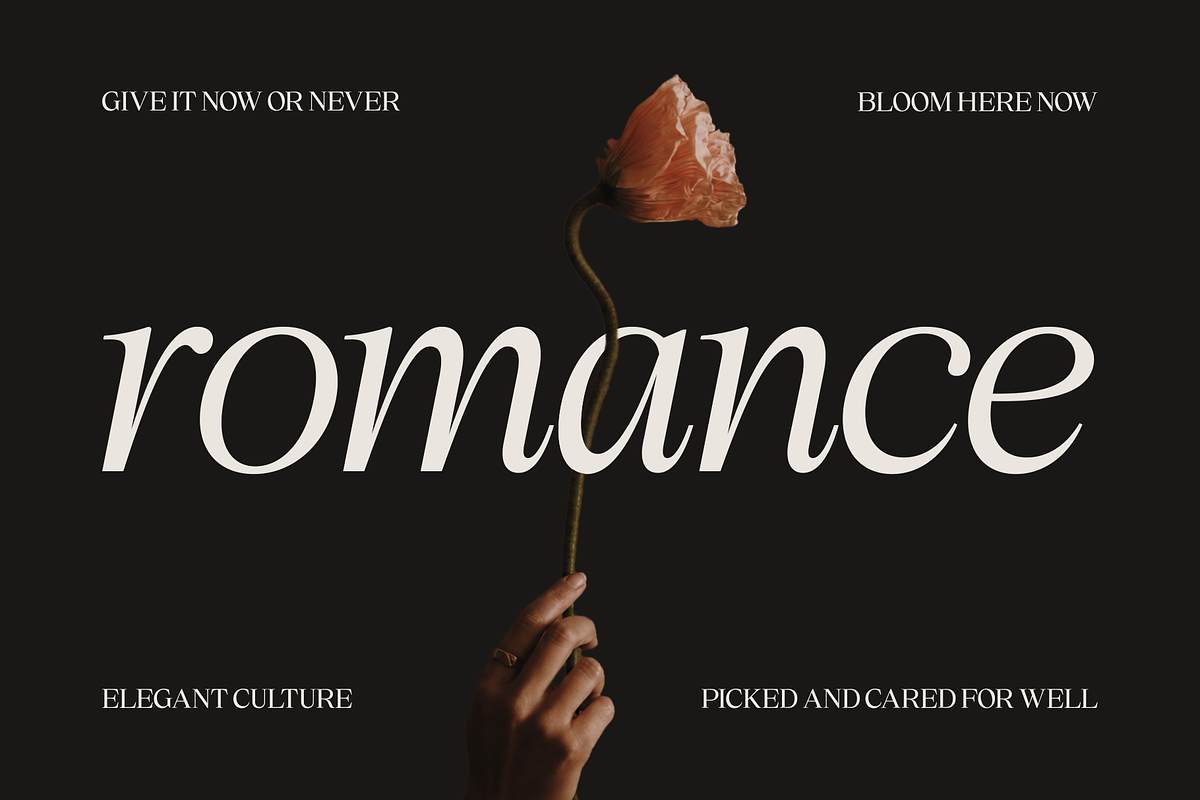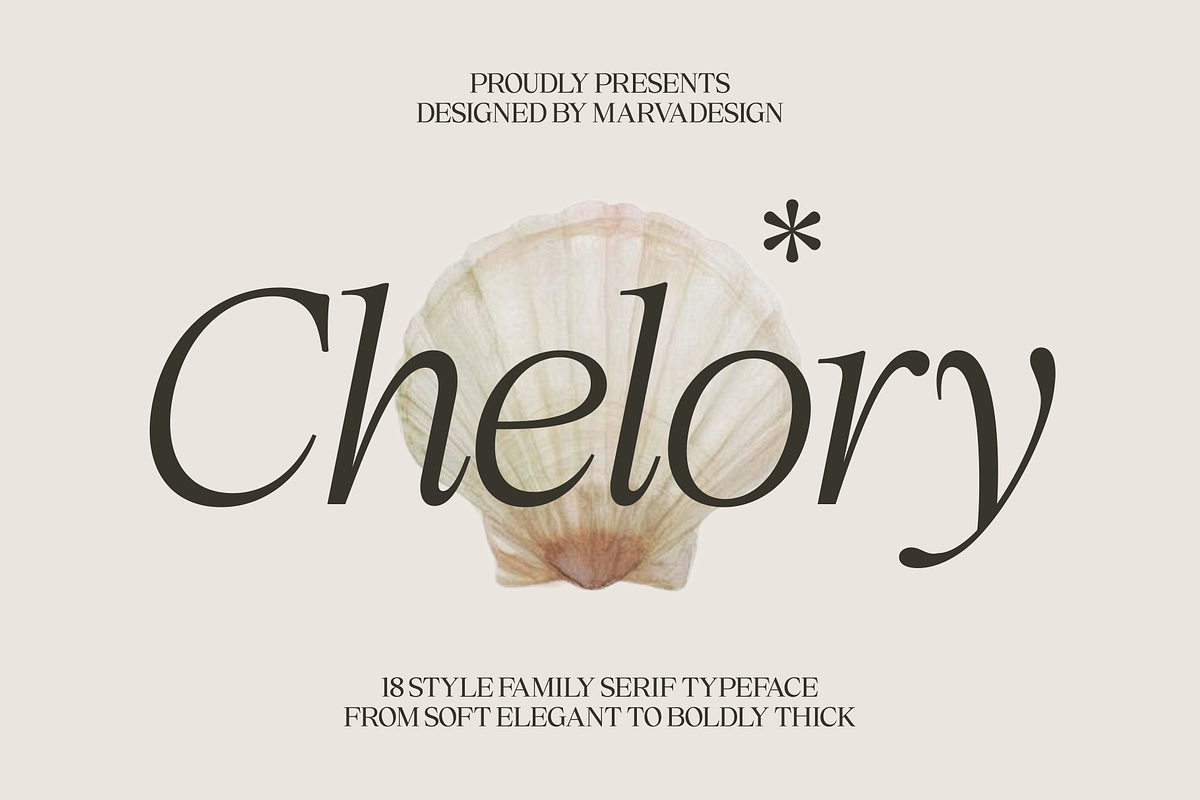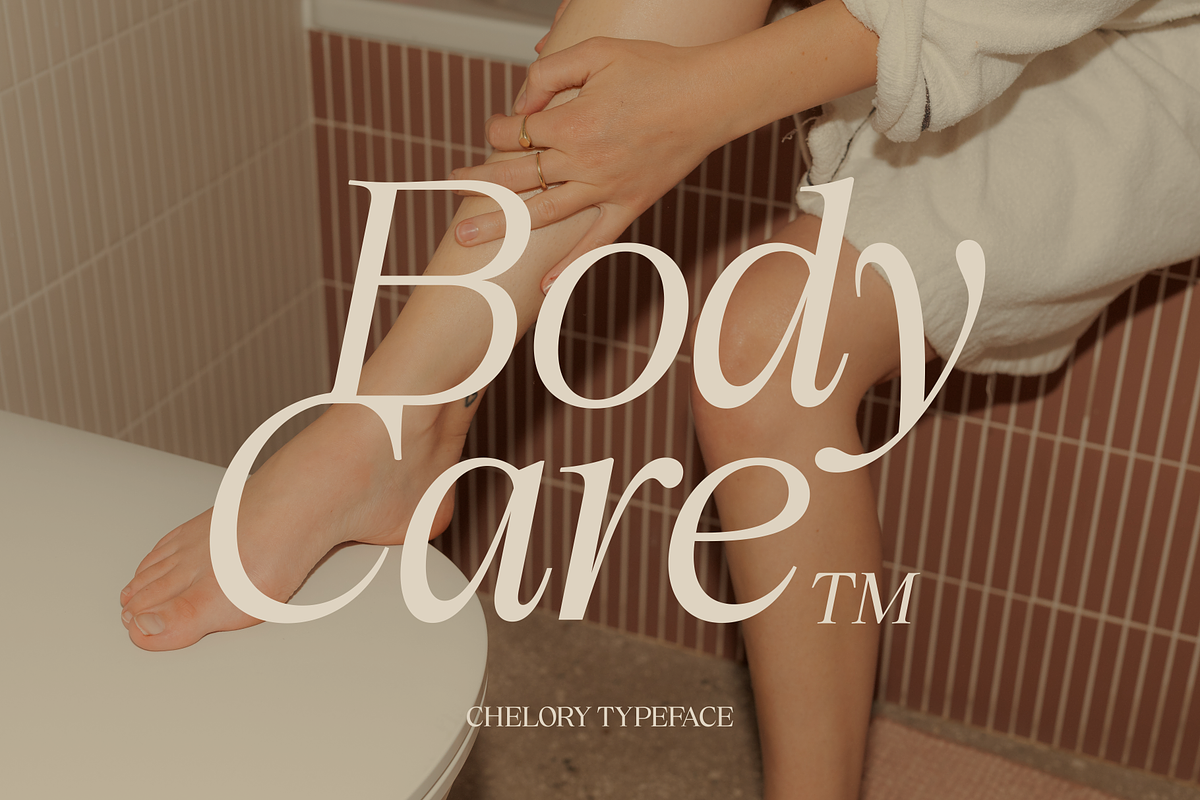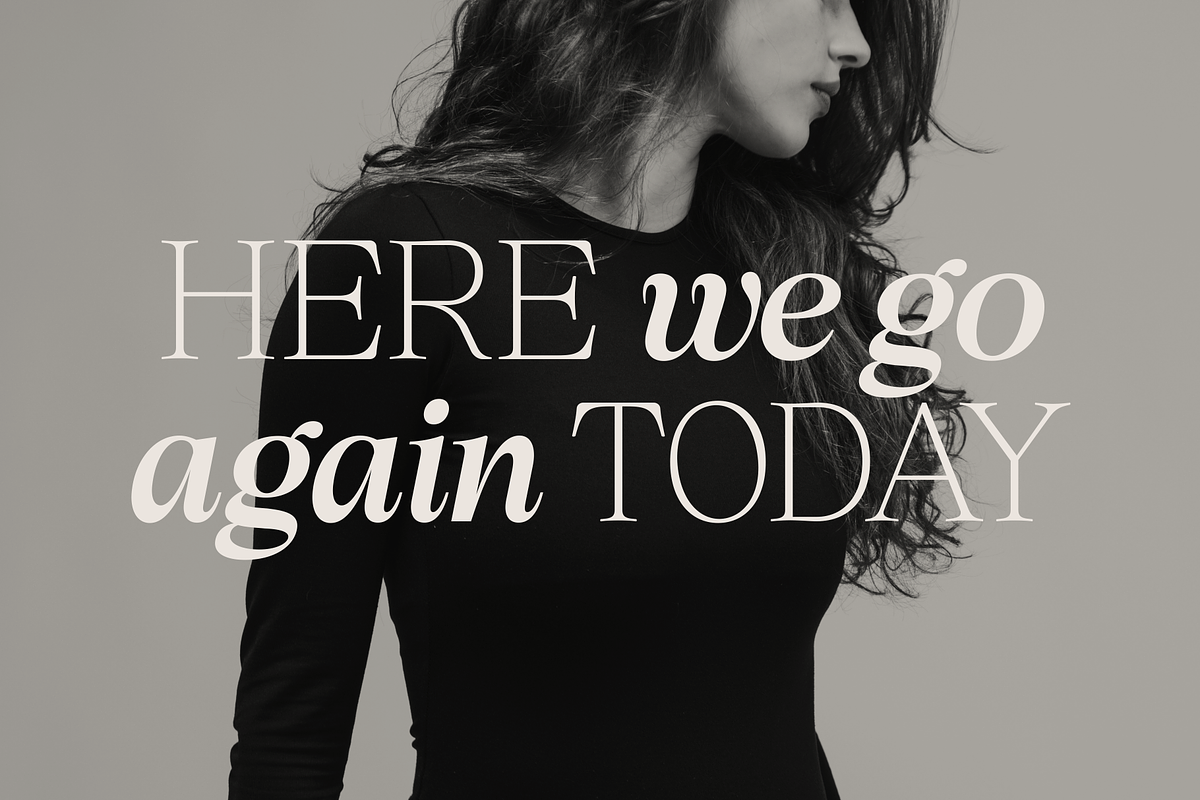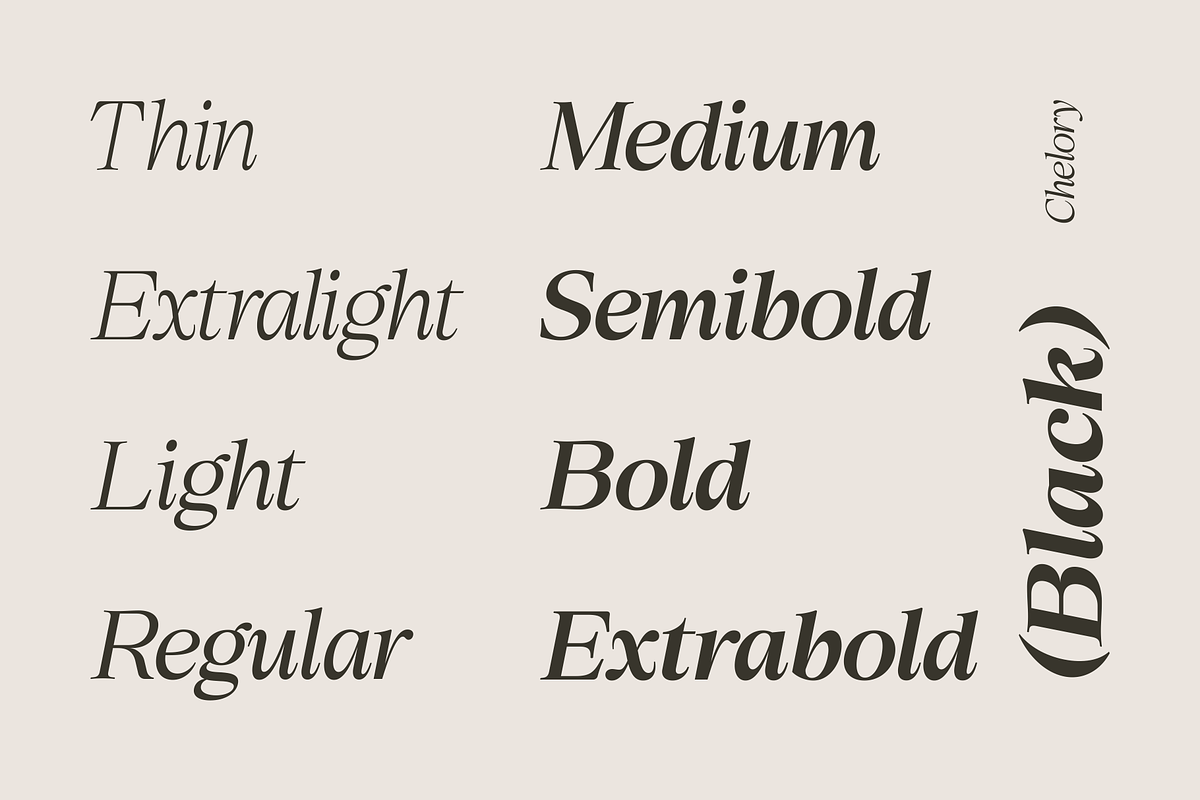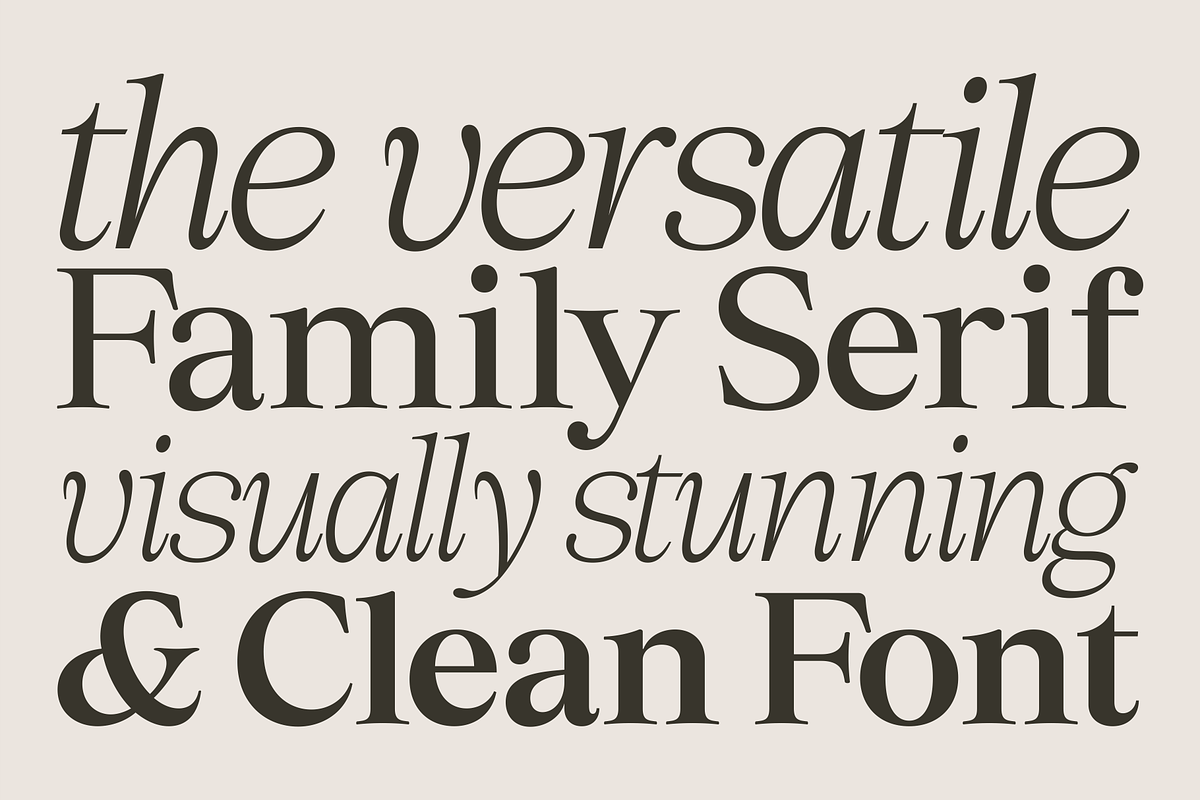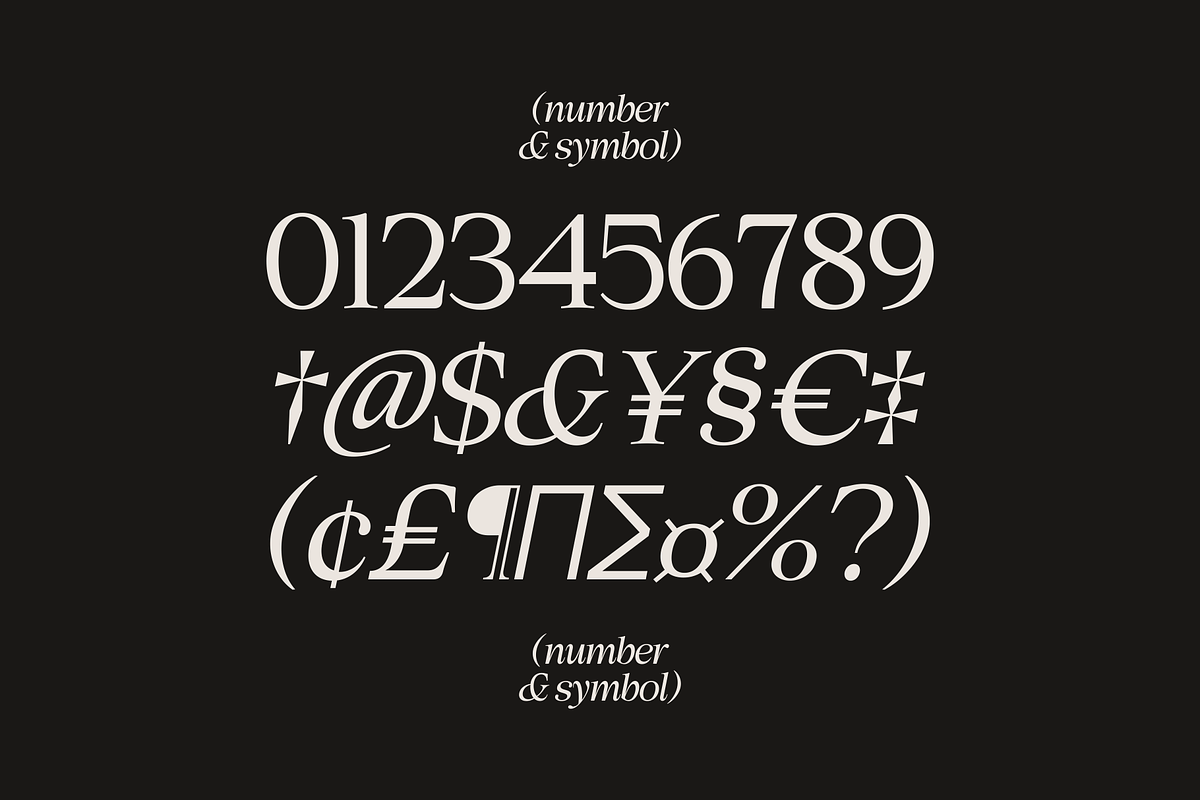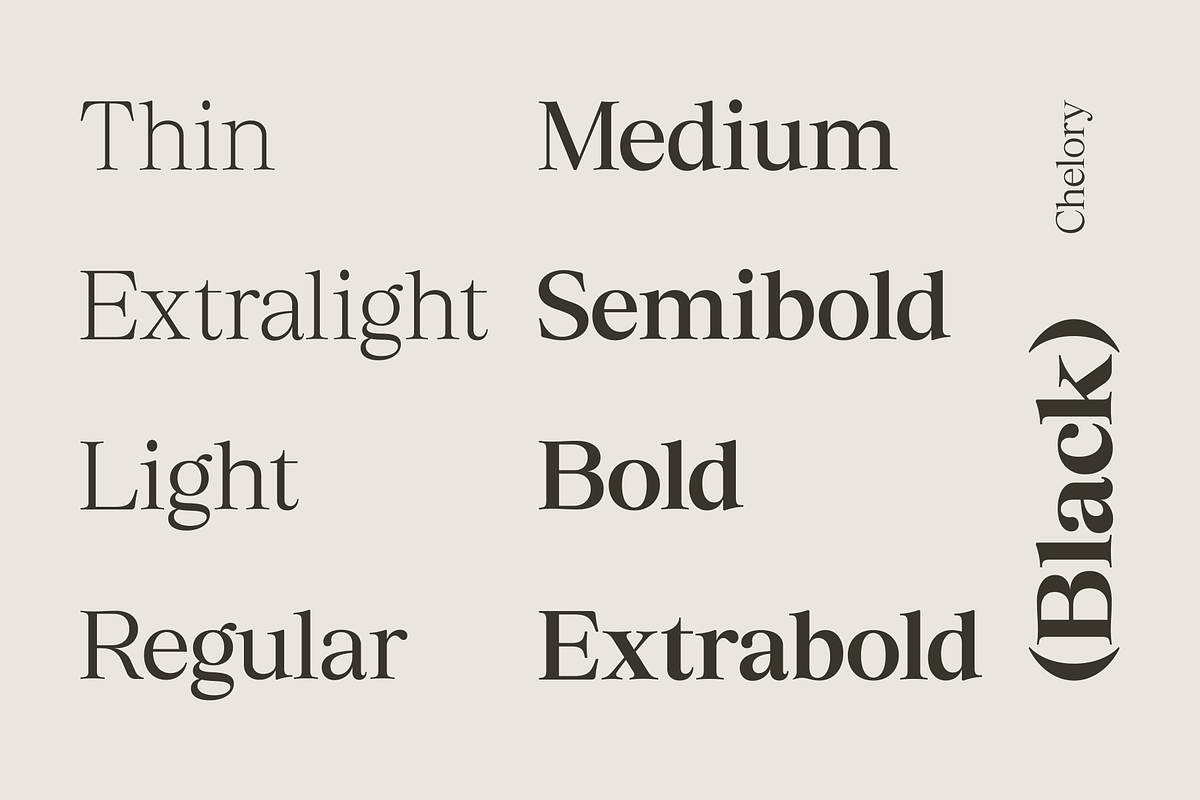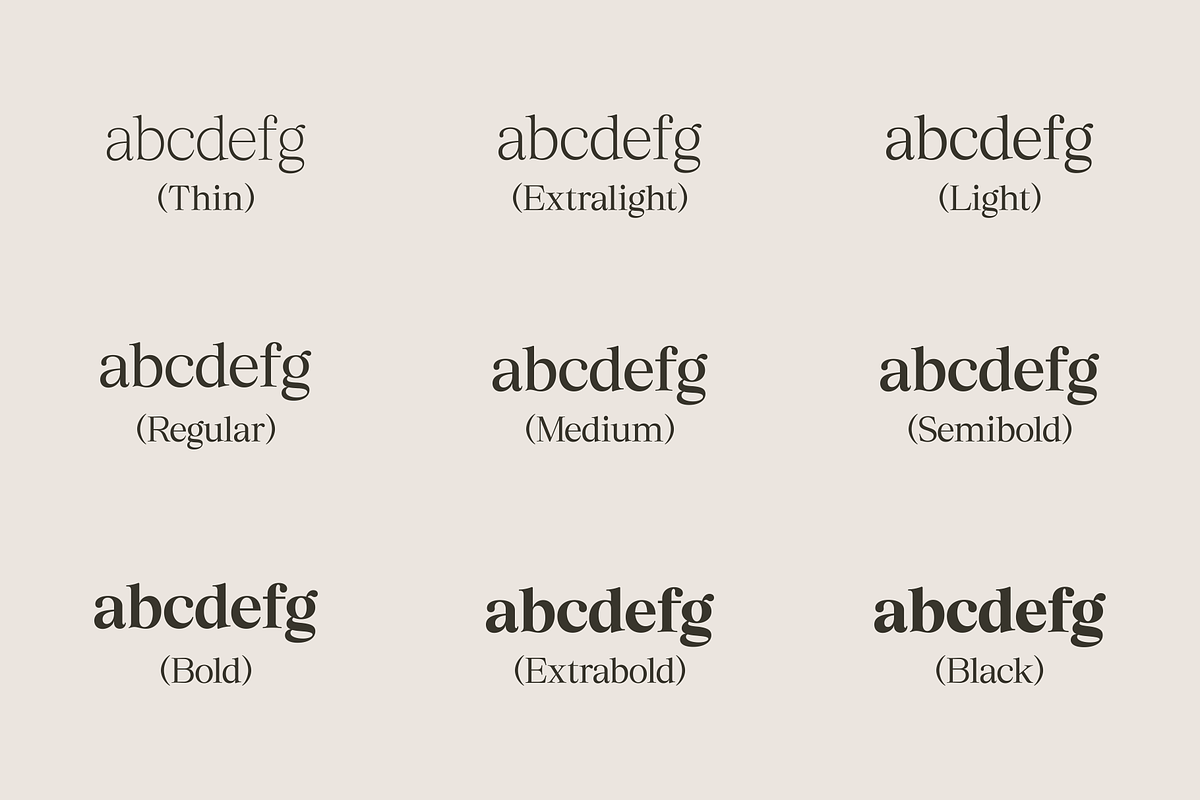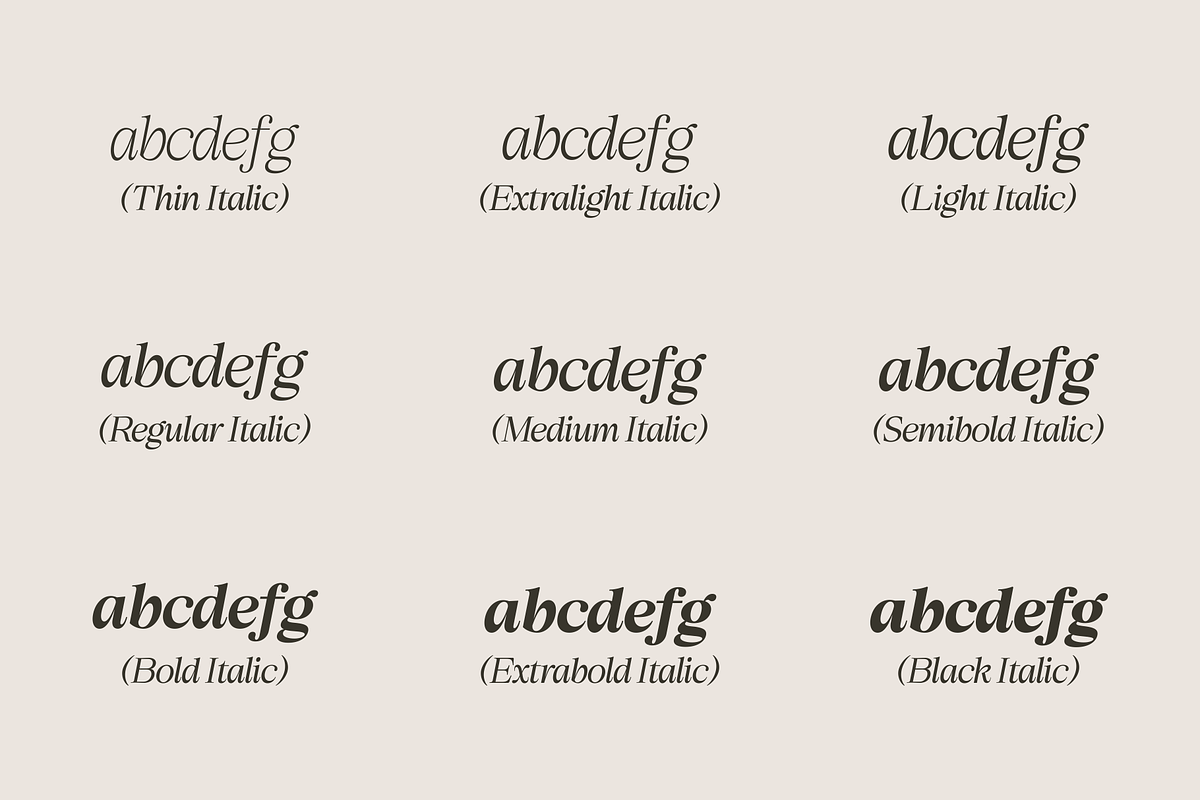
Chelory - Family Serif
Chelory is an elegant high-contrast serif typeface that blends timeless editorial sophistication with a contemporary fashion-forward character. Designed with refined proportions, dramatic stroke contrast, graceful curves, and distinctive italic forms, Chelory creates a luxurious yet expressive typographic presence. Its versatile 18-style family ranges from delicate Thin and Extralight weights to powerful Extrabold and Black, with matching italic styles that add a graceful, dynamic touch.
The typeface is characterized by its sharp yet elegant serifs, slender hairlines, smooth curves, and beautifully sculpted letterforms. The contrast between thick and thin strokes gives each character a sophisticated rhythm, while the italic styles introduce a more fluid and feminine personality. Distinctive details such as elegant terminals, sweeping curves, refined joins, and expressive lowercase forms give Chelory a recognizable identity beyond a traditional serif.
The styles include
Thin
Thin Italic
ExtraLight
ExtraLight Italic
Light
Light Italic
Regular Italic
Medium
Medium Italic
SemiBold
SemiBold Italic
Bold
Bold Italic
Extra Bold
Extra Bold Italic
Black
Black Italic
Variable
Lowercase
Standard Ligature